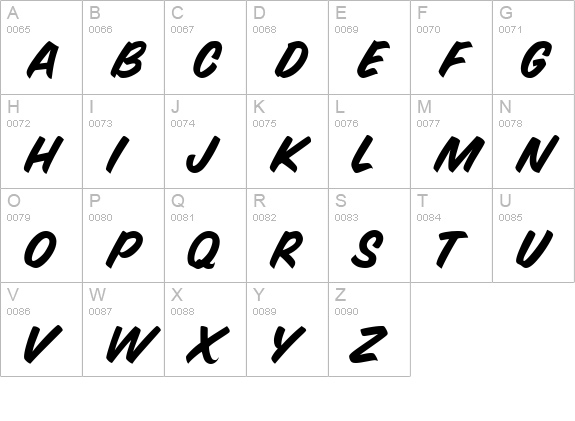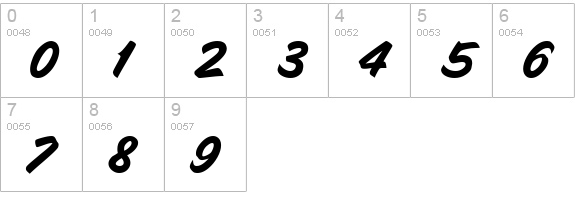
Falkland Font Details
Falkland font is a versatile and elegant typeface that exudes sophistication and modernity. With its clean lines and balanced proportions, Falkland is perfect for a wide range of design projects, from branding to editorial layouts. This sleek and stylish font features a unique blend of classic and contemporary elements, making it suitable for both traditional and modern applications. What sets Falkland font apart is not only its timeless appeal, but also the fact that it is available for free download at FontsMarket.com. This means that you can easily access this high-quality font without any cost, making it a valuable addition to your font library. Whether you're working on a personal project or a professional design, Falkland font offers the perfect combination of style, versatility, and affordability. Download Falkland font today and elevate your designs with this premium typeface.